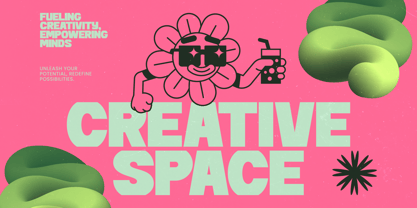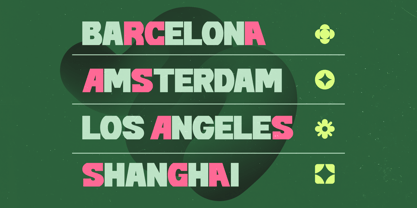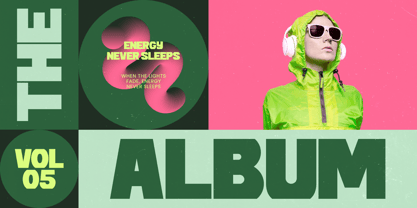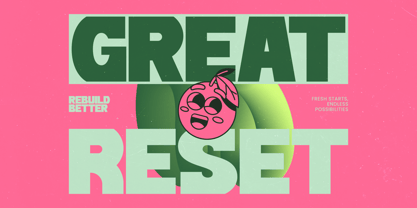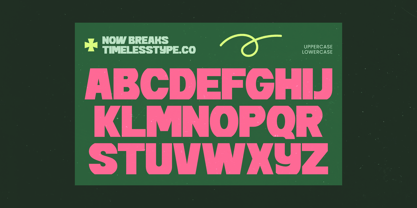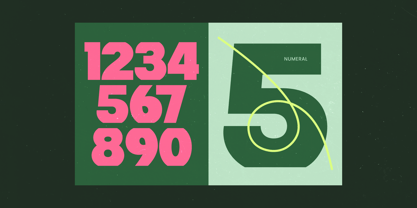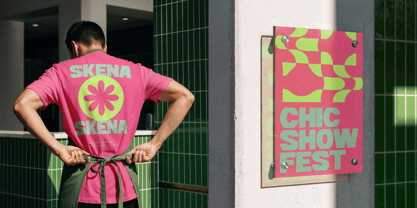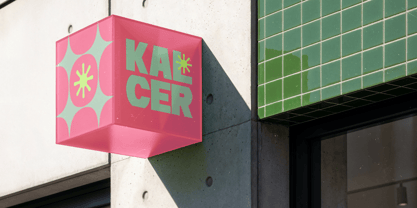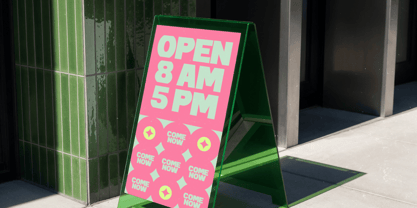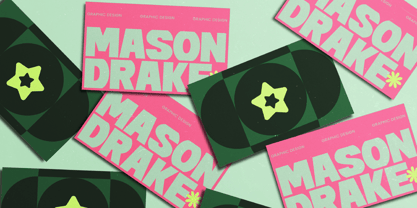
Now Breaks
par Timelesstype Studio
La famille de polices Now Breaks a été conçue par Heru Utama Putra et publiée par Timelesstype Studio. Now Breaks contient 2 styles et options de package familial. En savoir plus sur cette famille
Now Breaks - Bold Sand Display , Now Breaks is a bold sans serif display font built with heavy geometric forms, strong uppercase dominance, and a confident modern attitude designed for maximum visual impact. The letterforms are wide, solid, and clean, delivering a powerful presence that feels contemporary, energetic, and highly readable at large sizes. With 8 ligatures and 13 alternates, this font offers subtle variation while maintaining a consistent, punchy rhythm across headlines and branding layouts. Now Breaks is ideal for posters, headlines, branding, advertising, social media graphics, editorial titles, packaging, and modern visual campaigns that demand clarity, strength, and instant attention. Optimized for both digital and print use, this typeface excels as a bold display font for designers who want a modern, straightforward, and high-impact sans serif style.